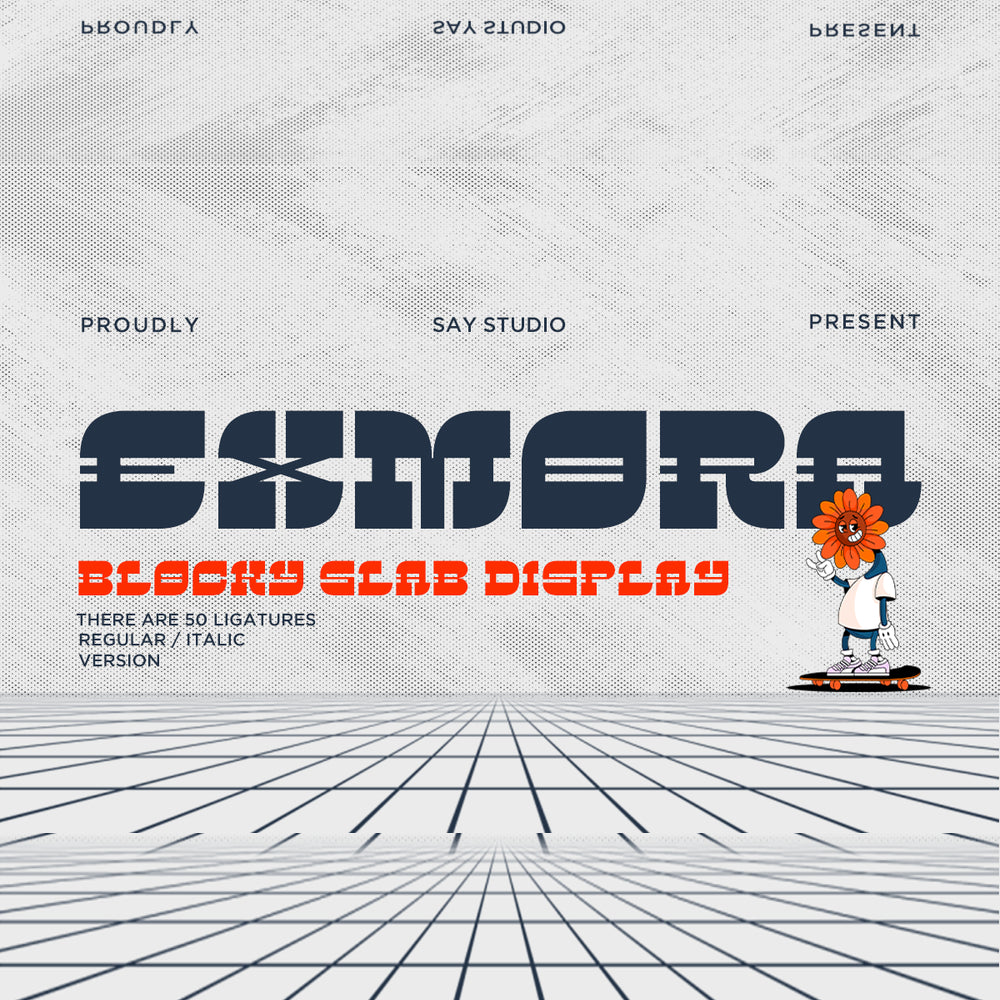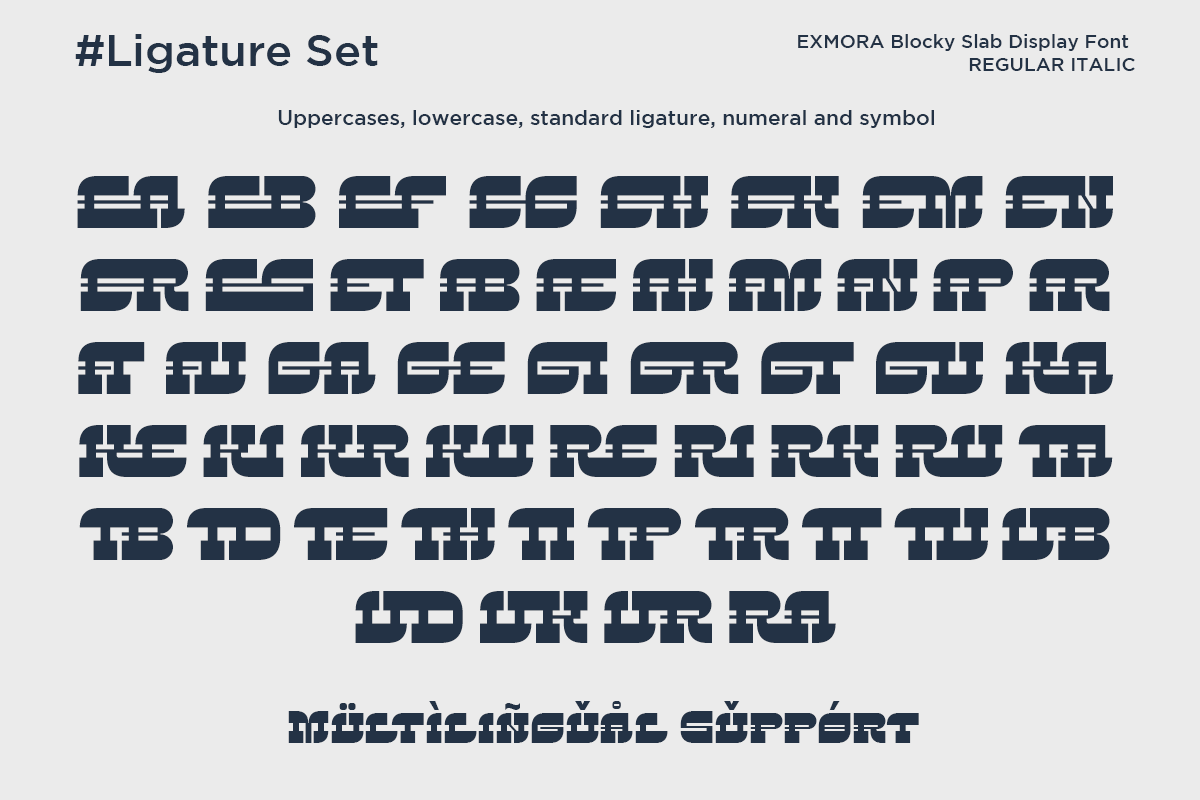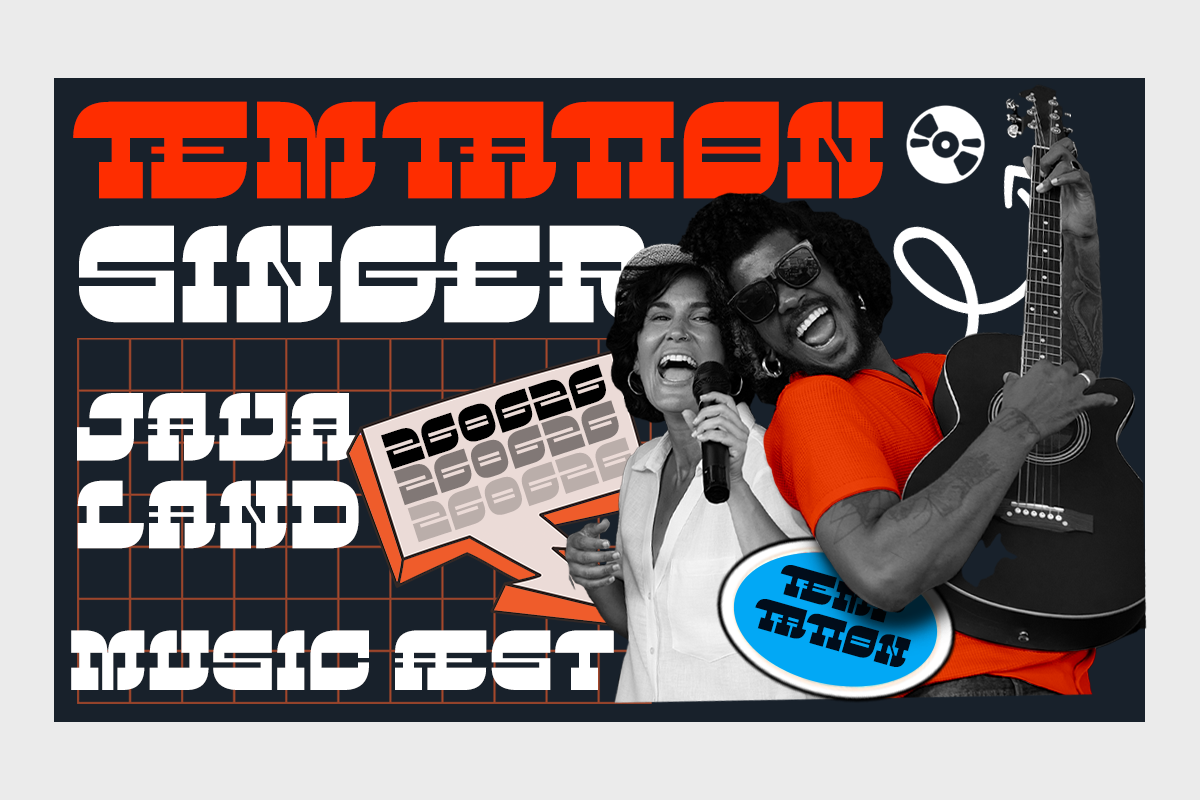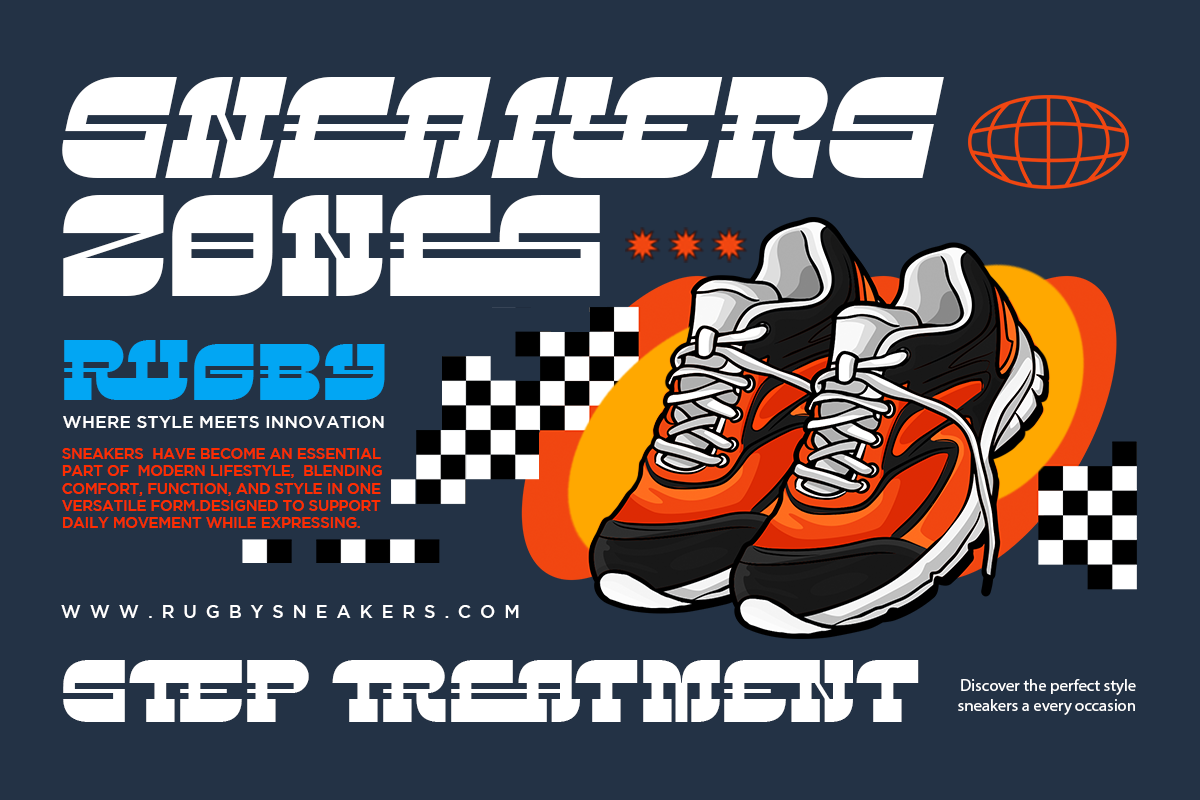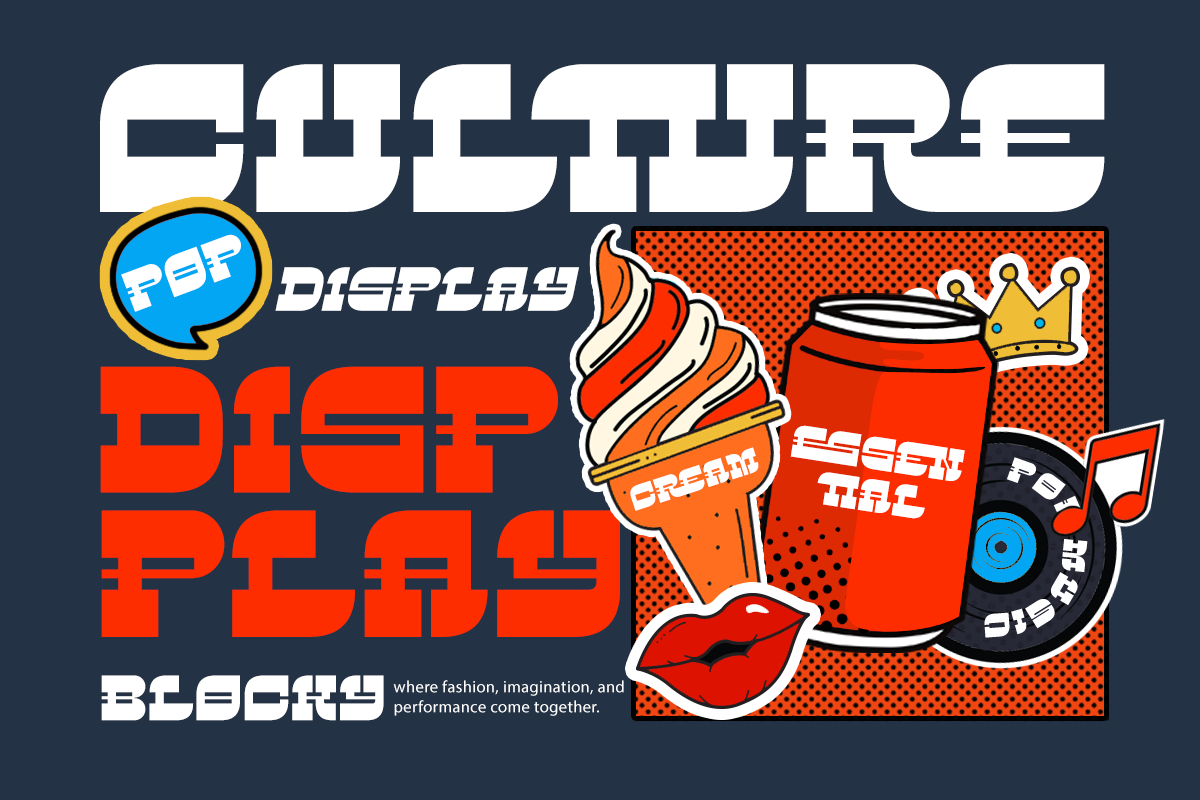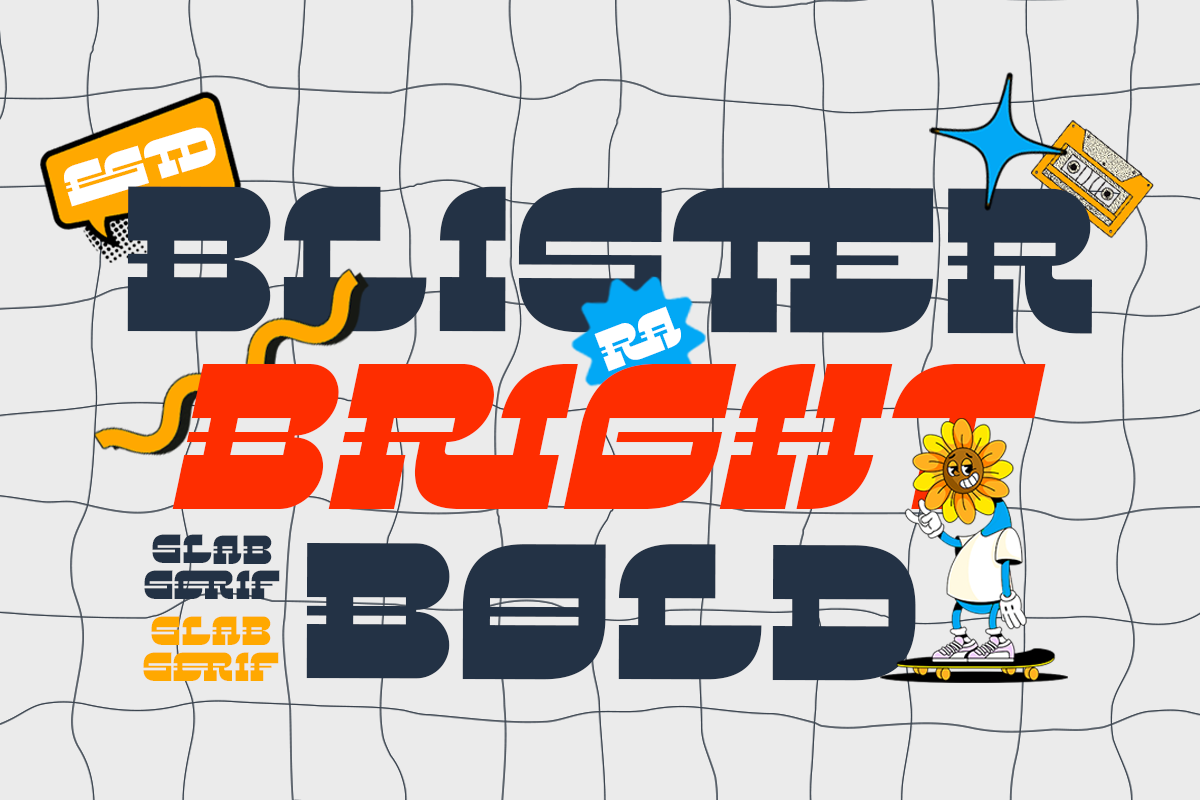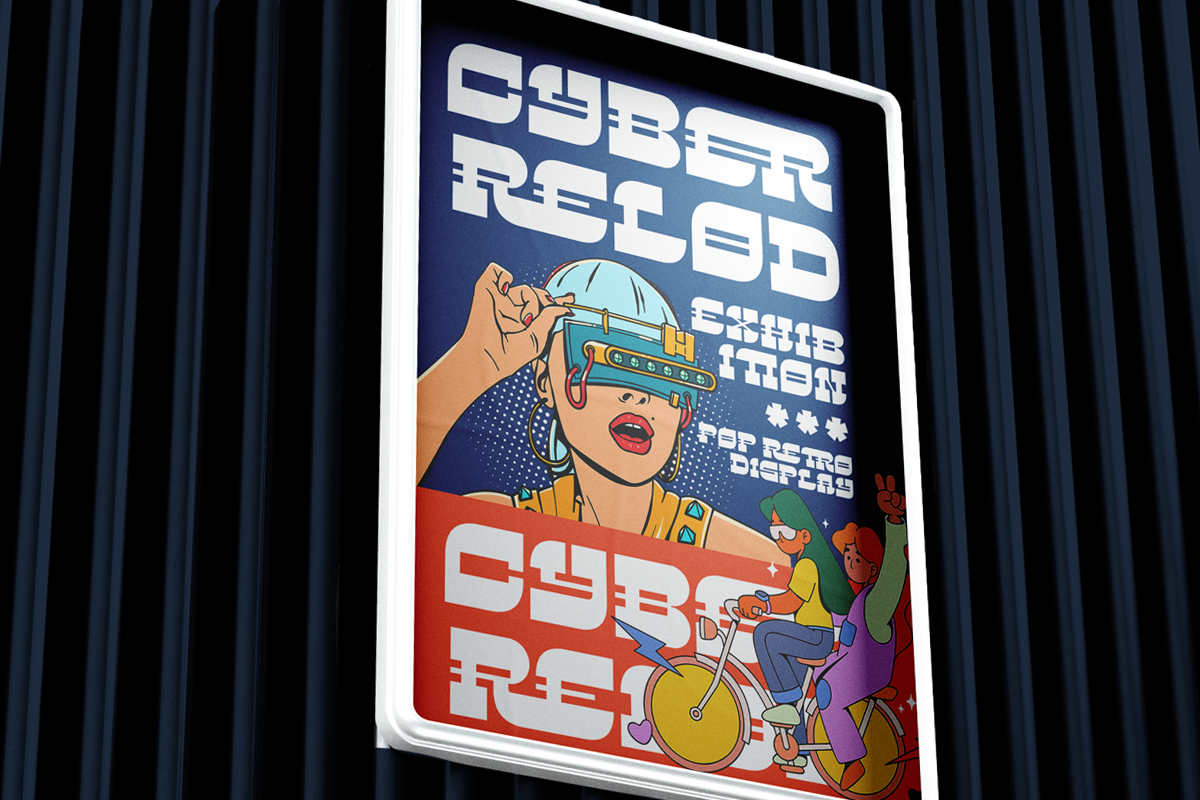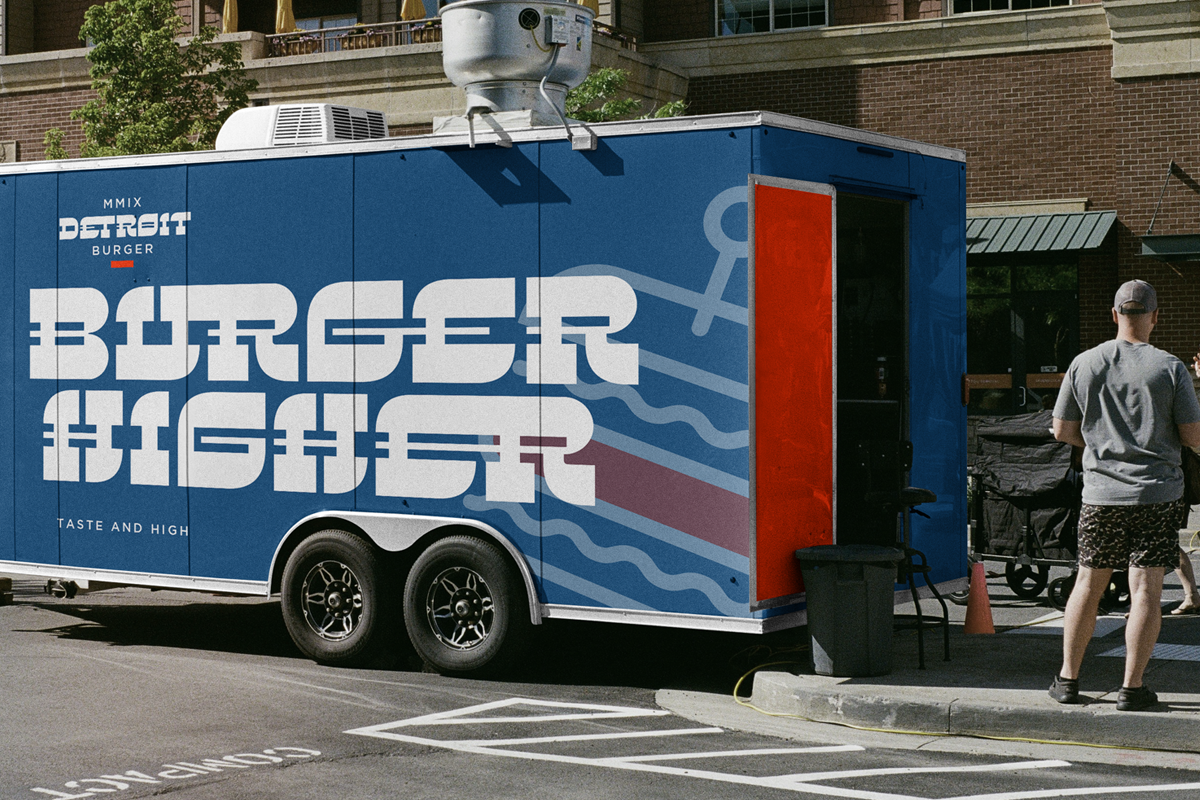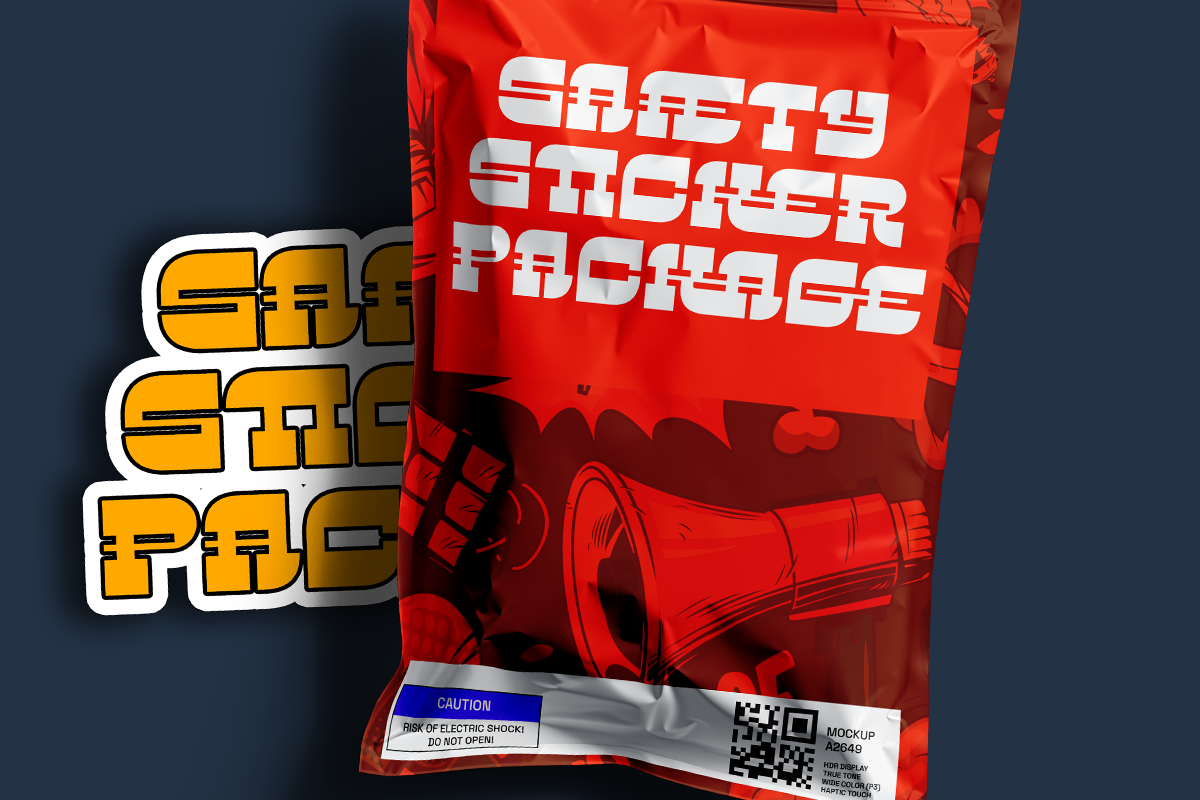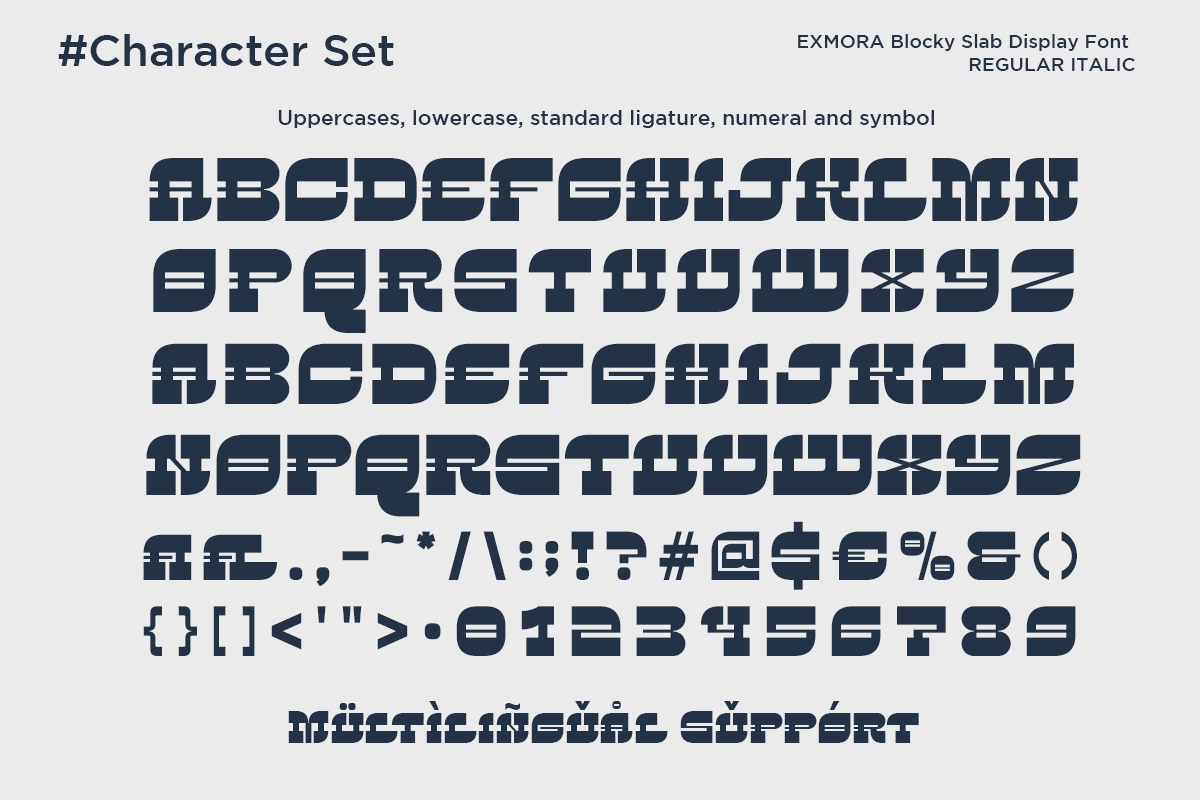
Exmora - Bold Slab Serif Font
Exmora is a blocky slab display font with chunky, geometric, and playful shapes. Designed to deliver strong visual impact, exmora works perfectly for posters, headlines, logos, branding, packaging, streetwear designs, and modern creative projects. Its solid structure and fun character make exmora ideal for eye-catching typography with a modern, futuristic, and energetic feel.
Exmora is a bold slab serif display font featuring chunky, geometric shapes in Regular and Italic styles. It includes uppercase and lowercase characters, ligatures, symbols, numbers, multilingual support, and is provided in OTF, TTF, and WOFF formats.